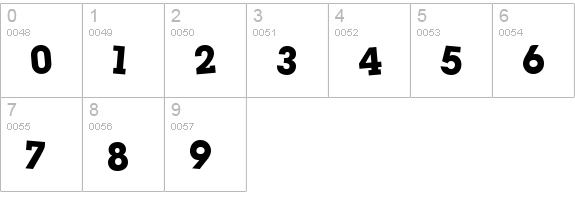
CK Tipsy Font Details
Introducing CK Tipsy font, a whimsical and playful typeface that exudes a sense of fun and creativity. This unique font features quirky and irregular letterforms that give off a lighthearted and carefree vibe. CK Tipsy is perfect for adding a touch of personality to your designs, whether you're working on a party invitation, a children's book, or a branding project that calls for a touch of whimsy. Best of all, CK Tipsy font is completely free to download at FontsMarket.com! So go ahead and add this charming and cheerful font to your collection today. Let CK Tipsy bring a smile to your audience's faces and inject a dose of joy into your creative projects.